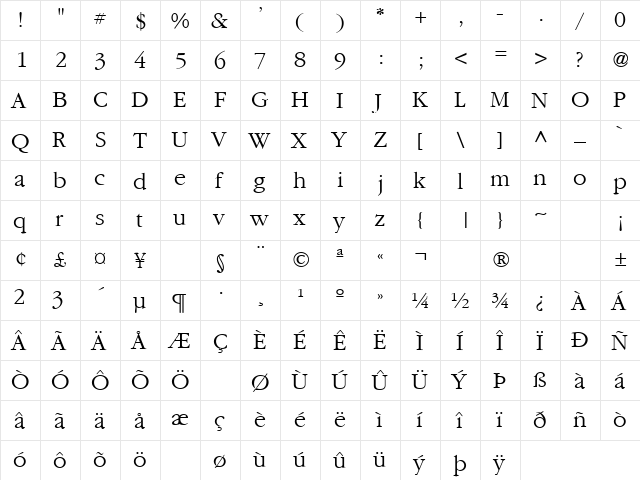
Kings And Queens 2 Regular
Design Context for Kings And Queens 2 Typeface
Kings And Queens 2 offers clean, dependable letterforms without strong stylistic allegiance, making it a practical choice for designers who need flexibility.